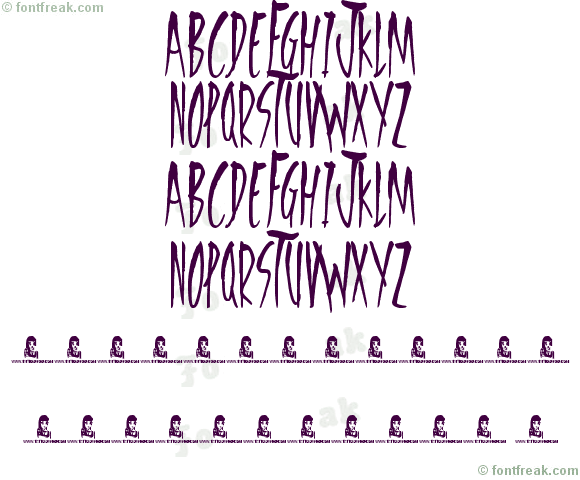
Freedom Fighters
The Freedom Fighters font by Jonathan S. Harris is a striking display typeface that combines a raw, edgy aesthetic with a sense of artistic freedom. This font is characterized by its bold and jagged strokes, which create a dynamic visual impact. The uneven stroke weight and high contrast give it a hand-drawn, almost rebellious quality, making it perfect for designs that seek to convey a message of strength and individuality. The spacing between characters is loose, enhancing readability while maintaining an energetic flow that captures attention.
Ideal use cases for the Freedom Fighters font include movie posters, where its vigorous style can effectively convey themes of action and defiance. Additionally, it works well for music album covers, particularly in genres that embrace a gritty or underground vibe. Small businesses, such as tattoo parlors, can leverage this font for promotional materials, while content creators might find it suitable for eye-catching social media graphics or blog headers. The font’s distinctive look appeals to graphic designers who want to make a bold statement in their projects.